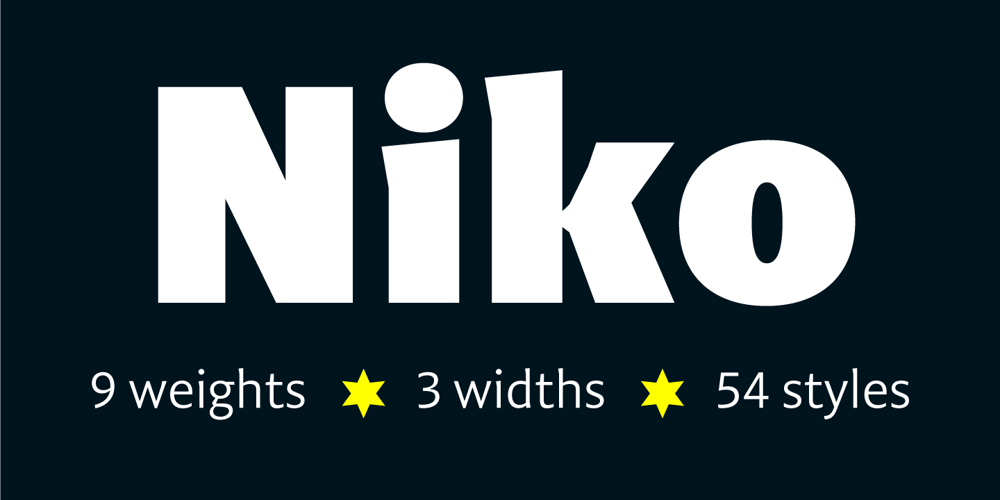
Niko Font Family was designed by Ludwig Übele and published by Ludwig Type. Niko contains 54 styles and family package options. Niko is a contemporary, humanist sans with a friendly yet clear and distinct personality. It is designed for excellent legibility, particularly for long continuous reading. The wedge-shaped stem heads add liveliness and variety to the carefully crafted letterforms. Niko, a highly versatile type family consisting of 54 styles that are designed to work equally well on paper and on screen. The family includes condensed, as well as extra-condensed variations, for situations where space-saving typography is required.